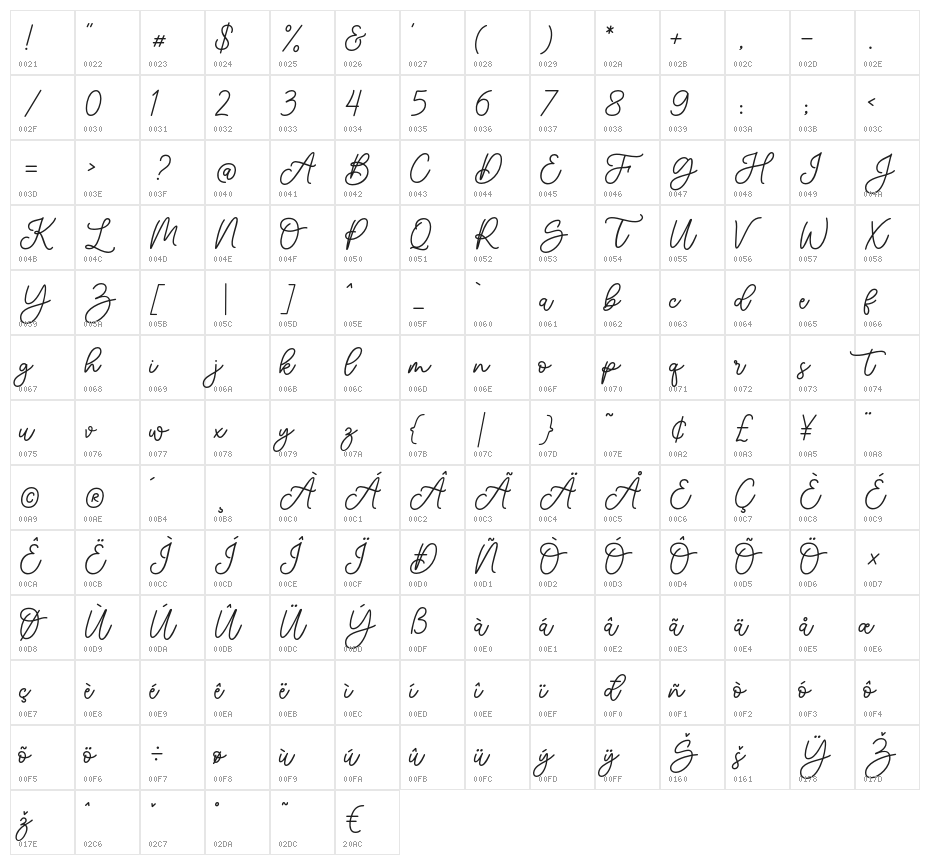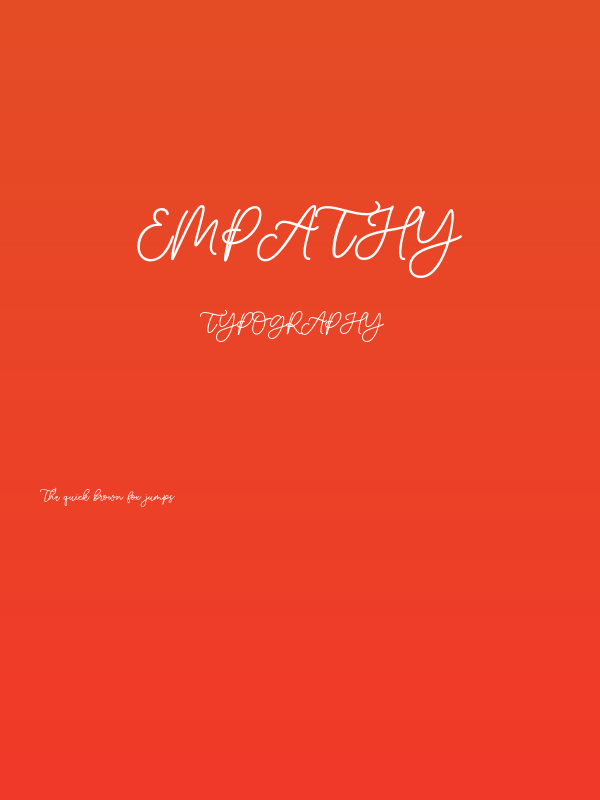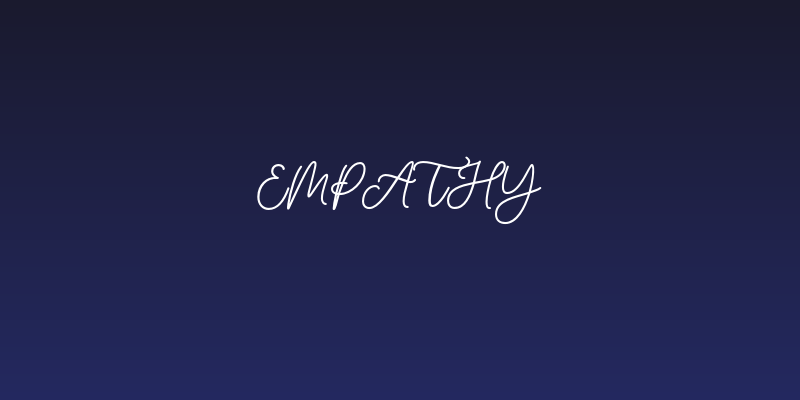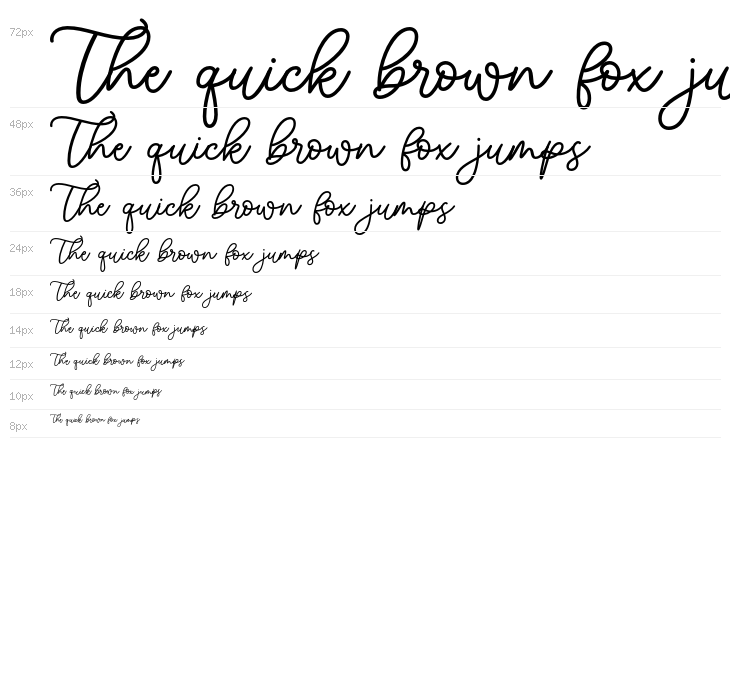
Empathy Font
Empathy Description
This font features an elegant and flowing script style, characterized by its smooth, connected letters that mimic natural handwriting. The uppercase letters are slightly more ornate, with subtle flourishes that add a touch of sophistication. The lowercase letters maintain a consistent flow, enhancing readability while preserving the font's artistic flair. Numbers and special characters are designed to complement the overall style, ensuring a cohesive look across all text elements. The font's graceful curves and balanced proportions make it suitable for a variety of design applications.
Overall StyleElegant
Use CaseLogos, Invitations, Decorative text
Proposed ProjectsIdeal for wedding invitations, greeting cards, branding, and elegant packaging designs.